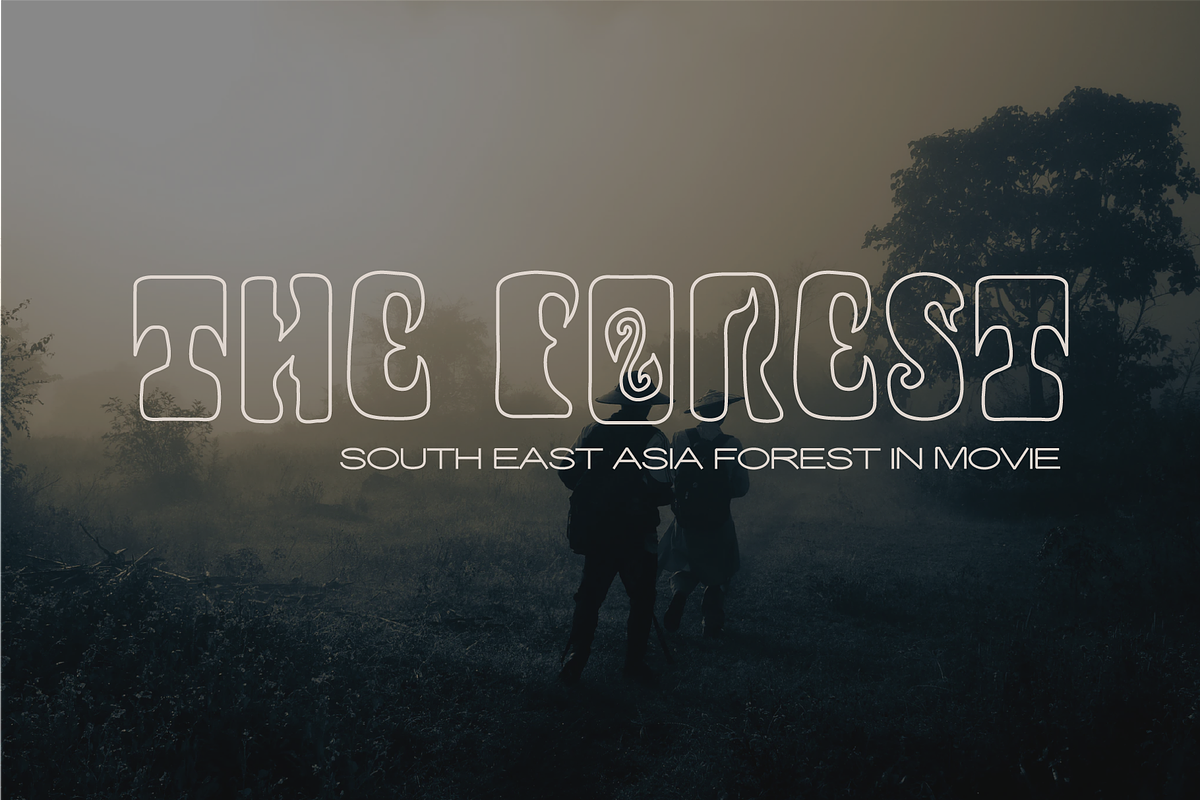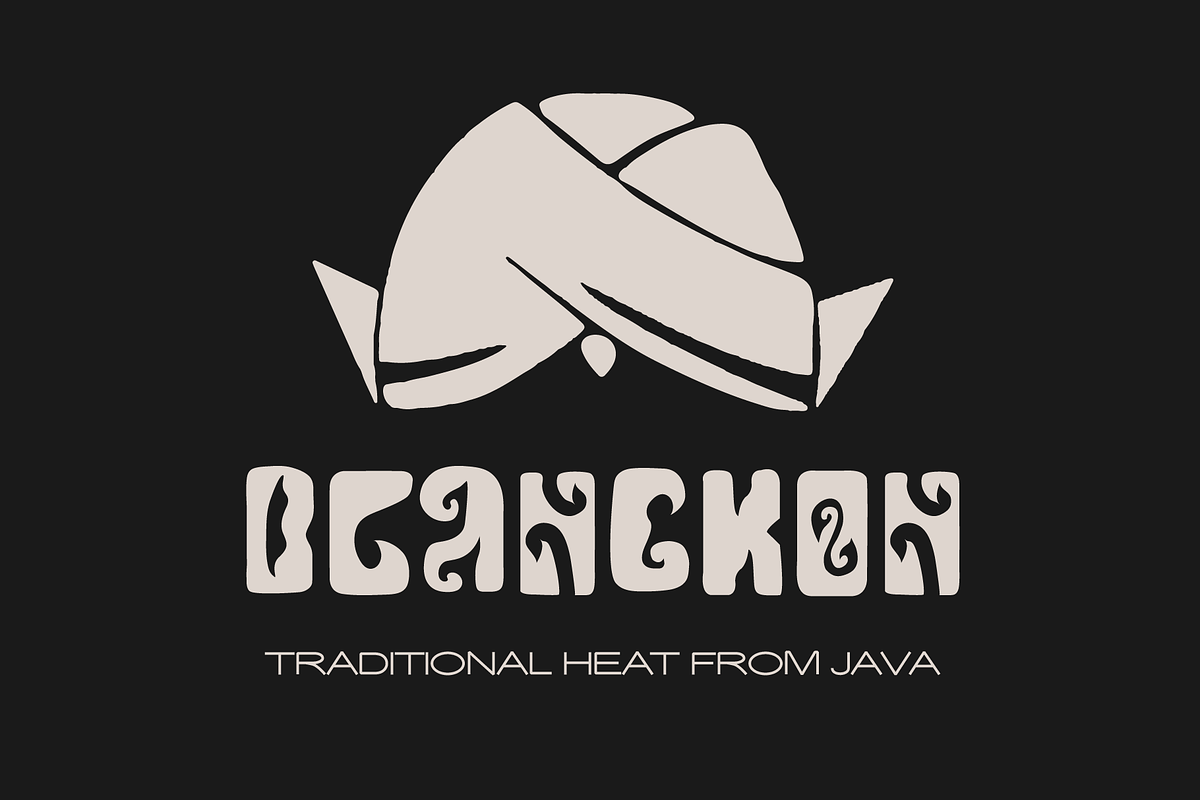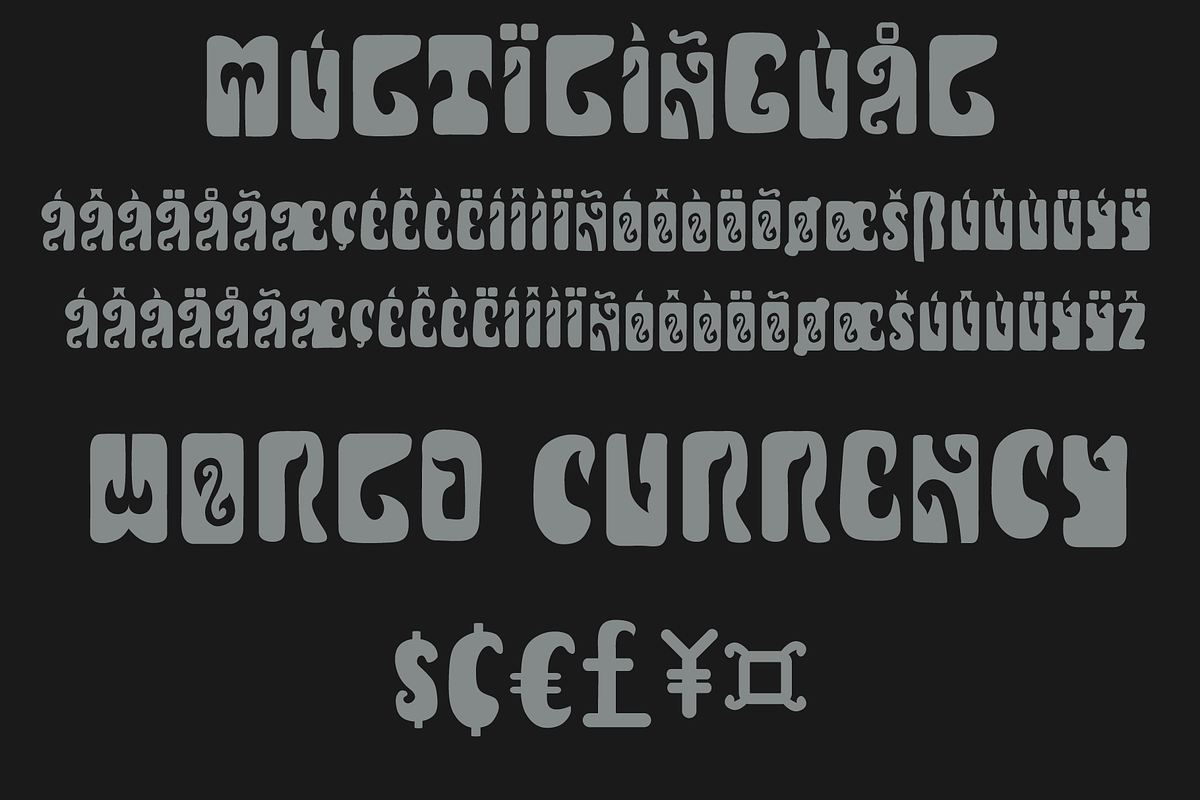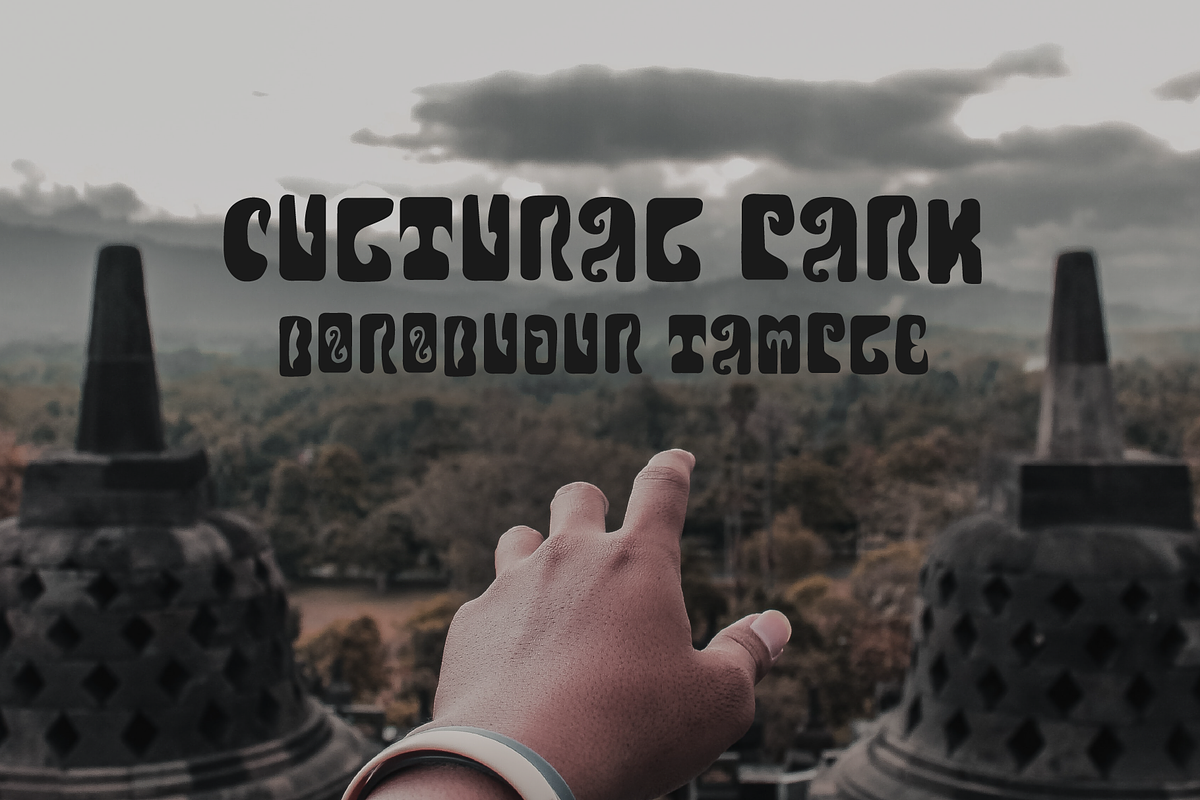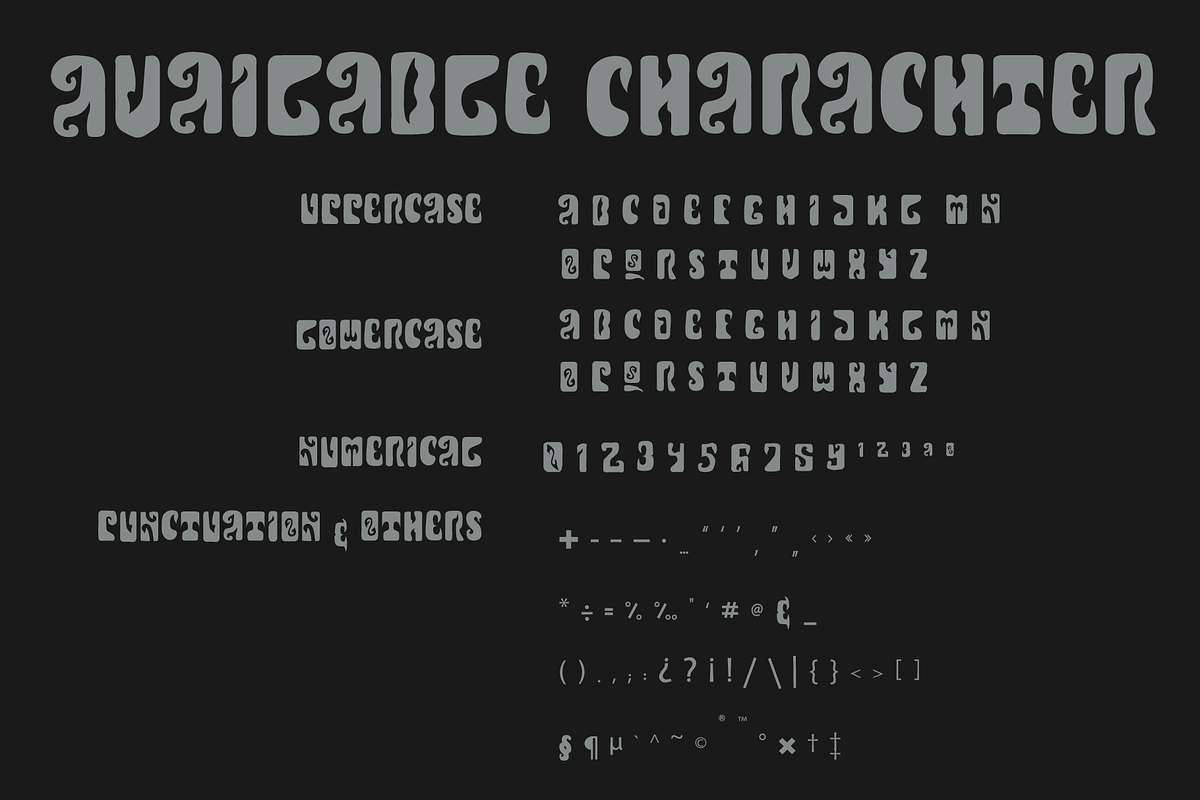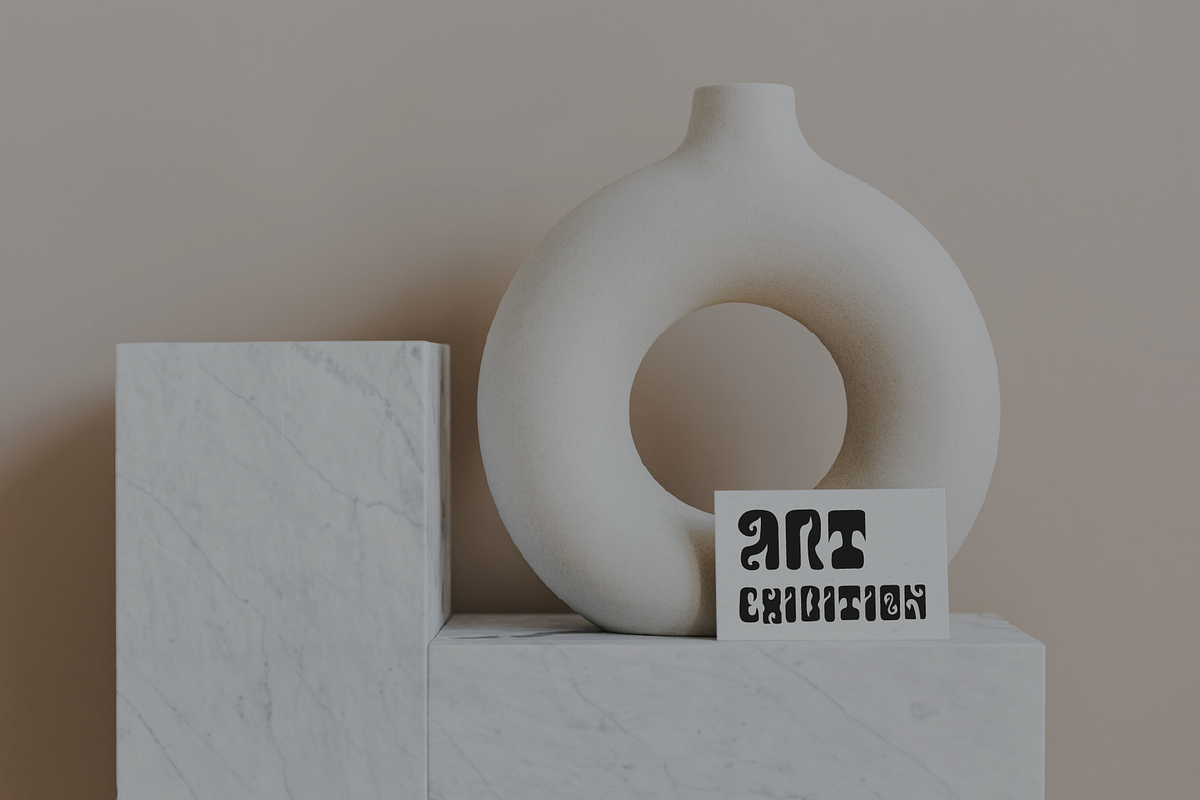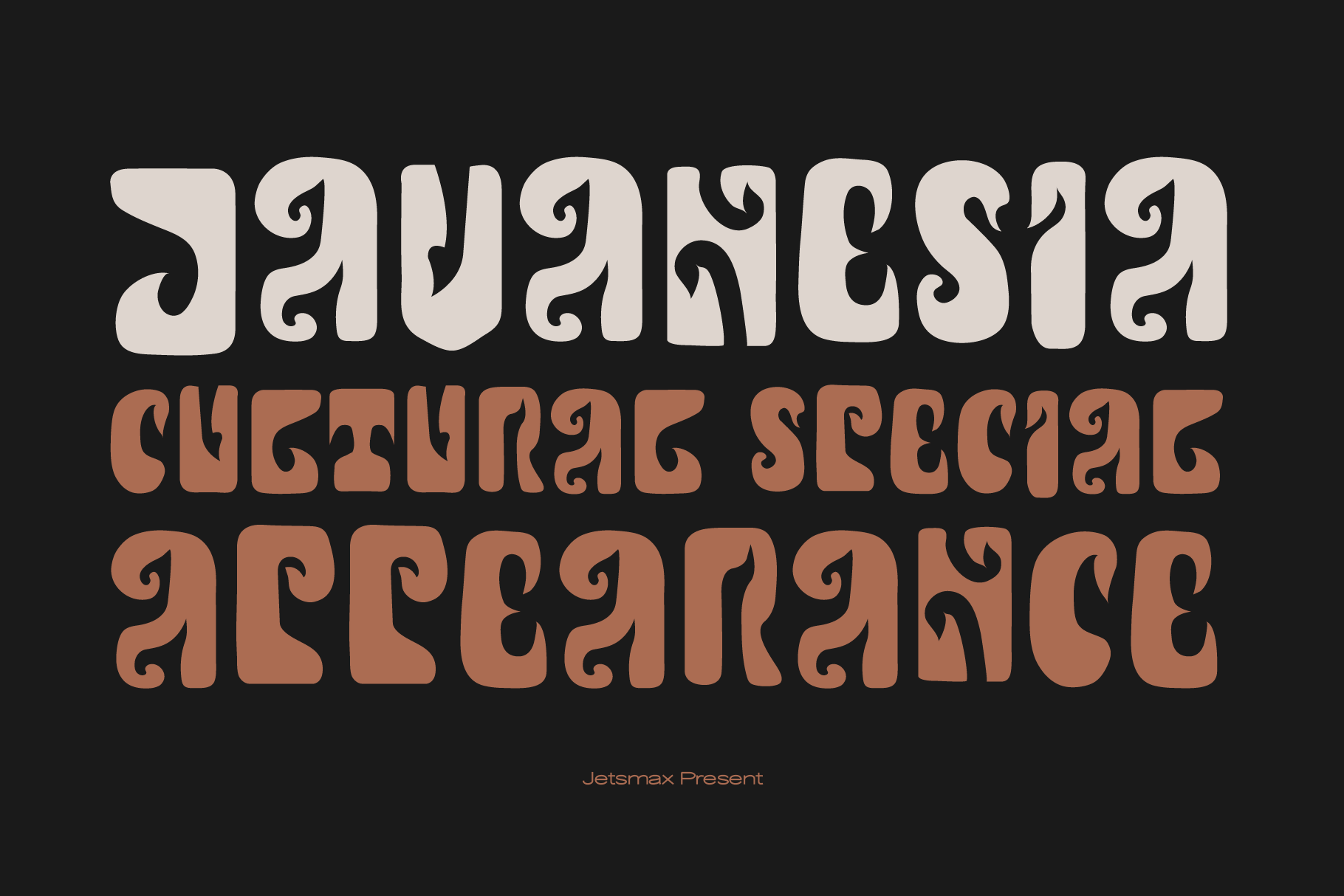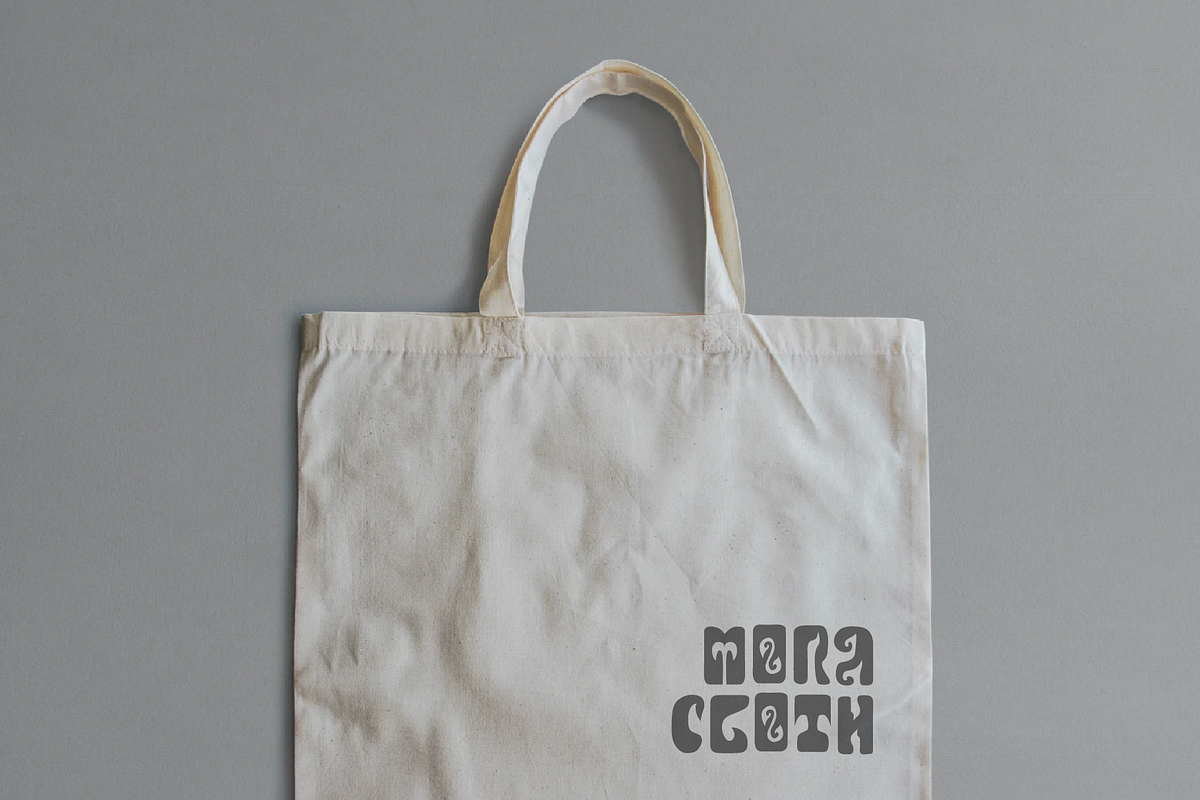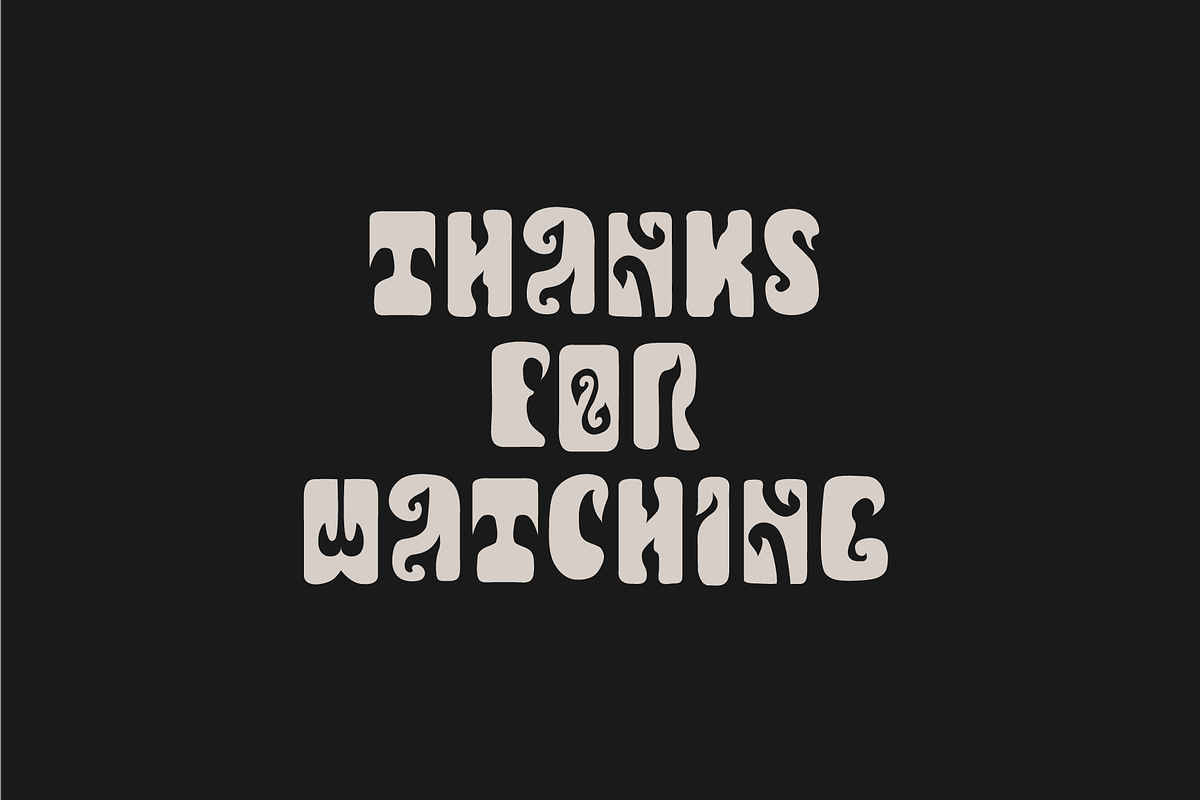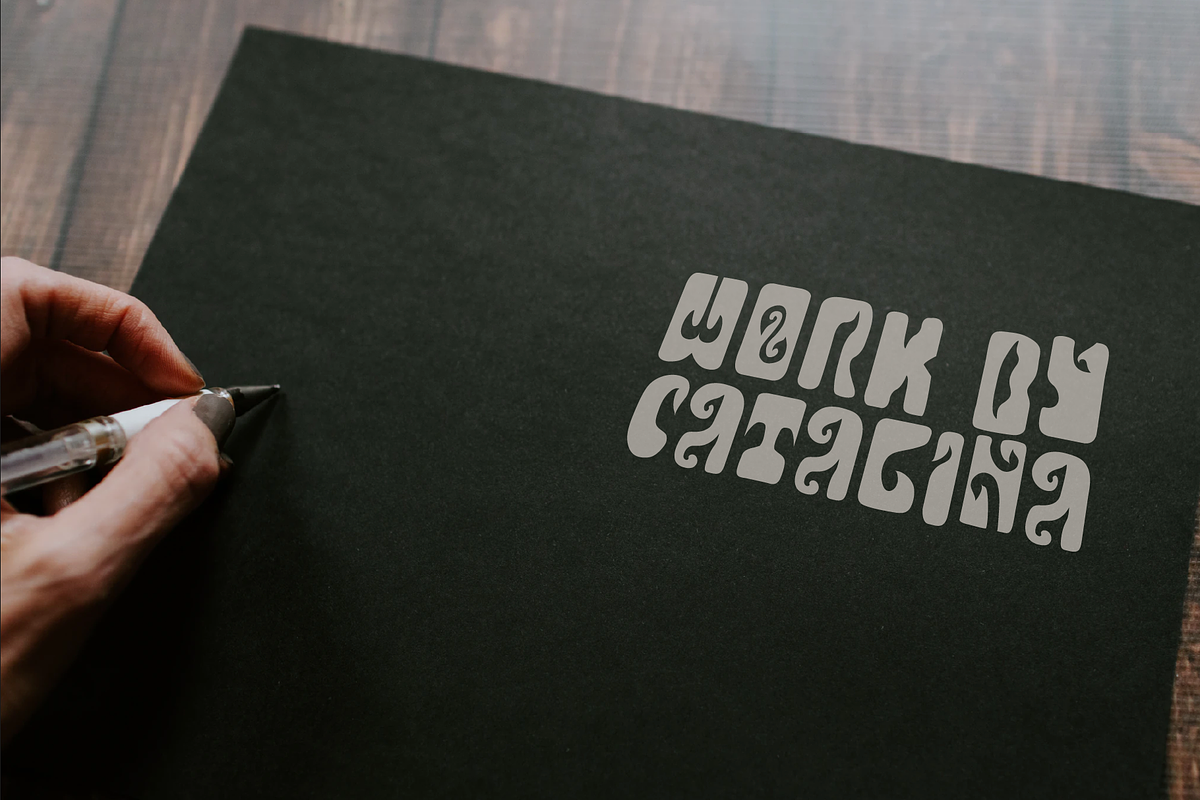
Javanesia - Special Display Typeface
Javanesia, a special and unique display font that inspired by a Javanese culture from Indonesia, specially made to give an authentic handdrawn look to any kind of design projects.
Javanesia best uses for logotype, branding, cultural events, exhibition design, poster, cards, social media posts, advertisements and many more. Let your imaginations run free!
- Unique and Authentic